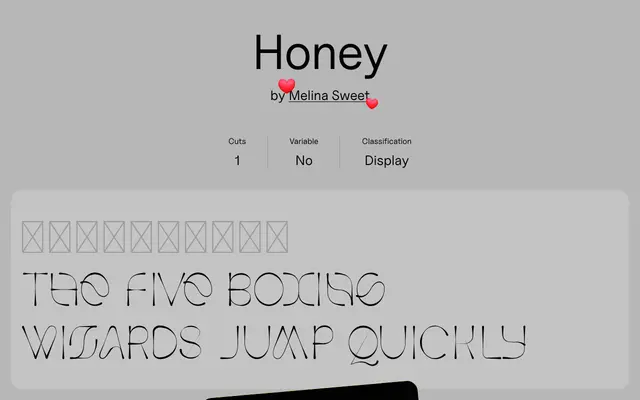
Honey
A single-cut display typeface by Melina Sweet, released under the SIL Open Font Licence for free commercial and personal use.
Available in one cut with no variable axis, it is a display face suited to headlines and expressive typographic work. Released under the SIL Open Font Licence 1.1, it permits commercial use, modification and redistribution with conditions. The limited offering makes it a straightforward pick for decorative headline applications.
Classified as Display by the foundry; a single-cut decorative typeface intended for headline and expressive use rather than extended text setting.